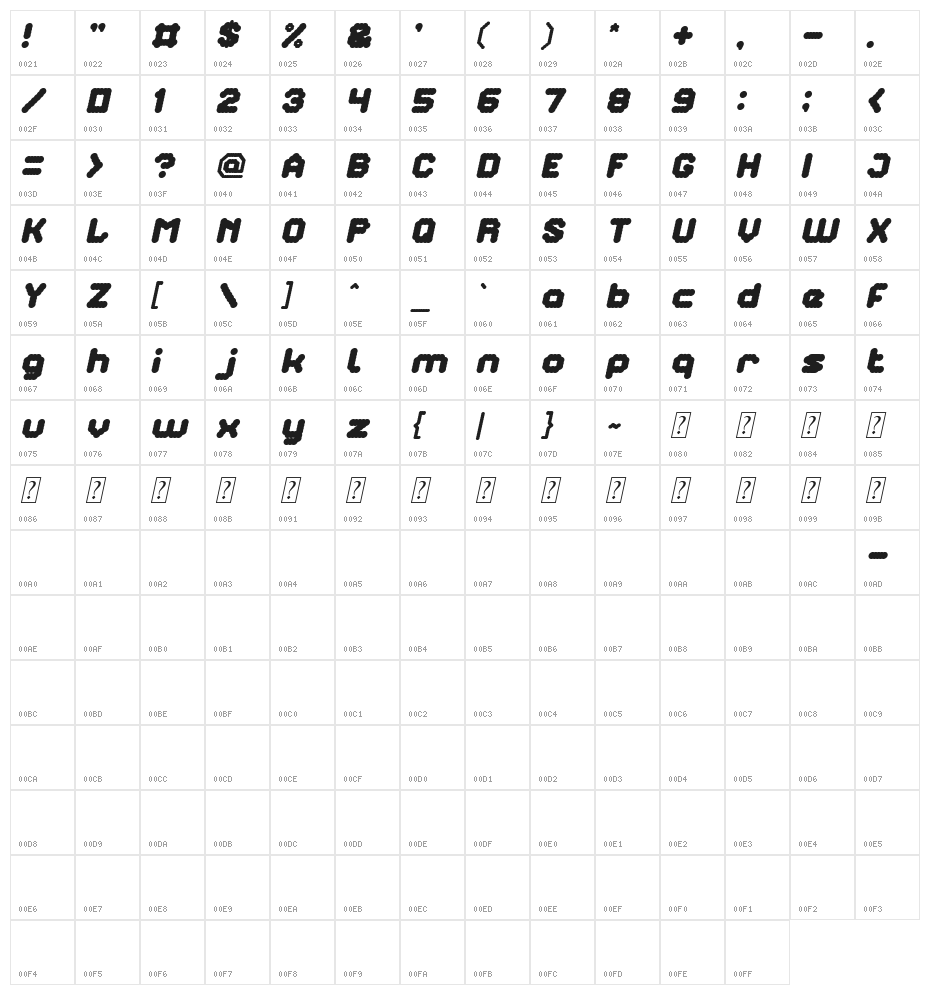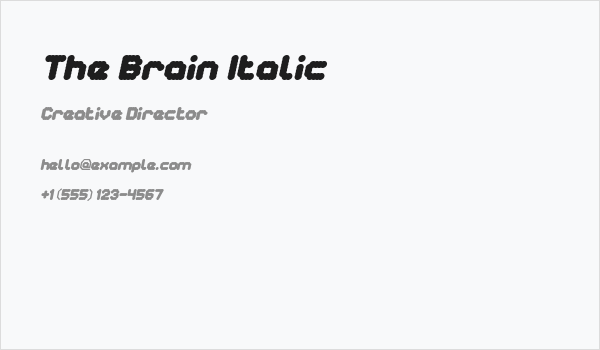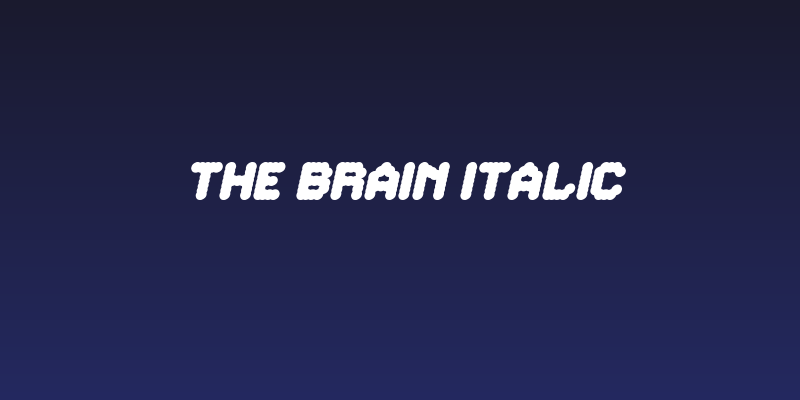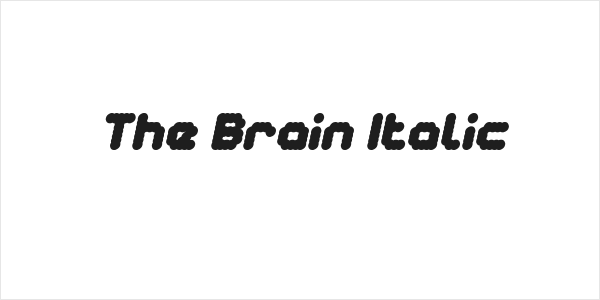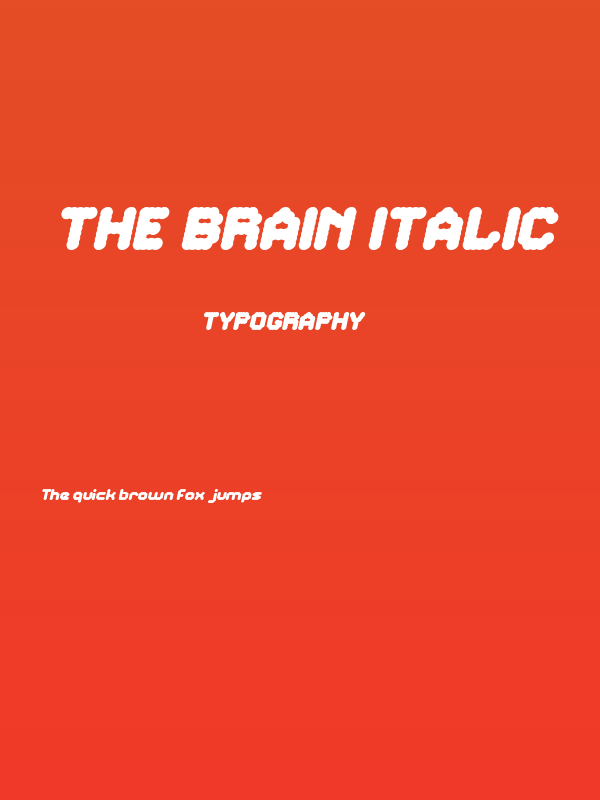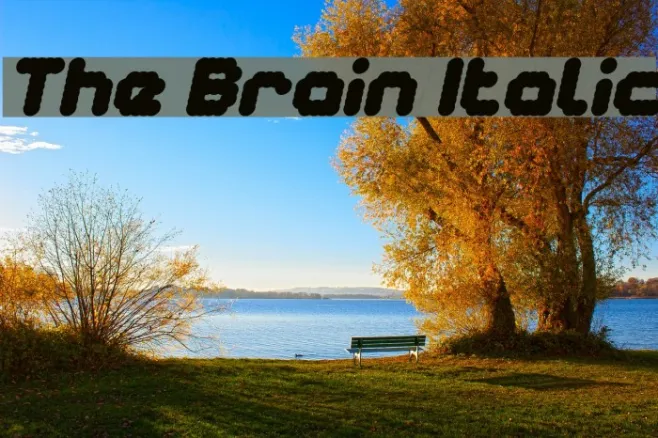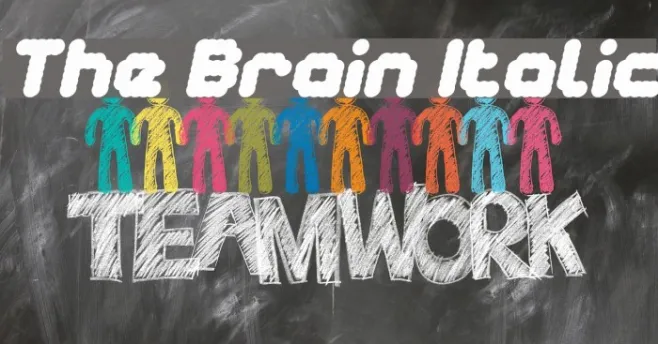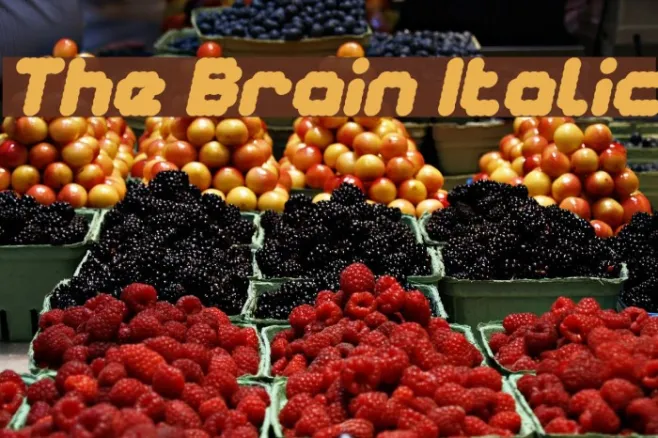
The Brain Italic Font
The Brain Italic Description
This font features a playful and bold design with a bubbly, rounded appearance. Each character is composed of interconnected circular shapes, giving it a unique, organic look. The font maintains a consistent weight throughout, with a slight slant that adds a dynamic, italicized feel. The characters are tightly spaced, enhancing the cohesive and compact nature of the design. This style is particularly eye-catching and would stand out in any creative project.
| Overall Style | Playful, Modern |
| Proposed Projects | Ideal for children's books, playful branding, creative posters, and eye-catching headlines. |